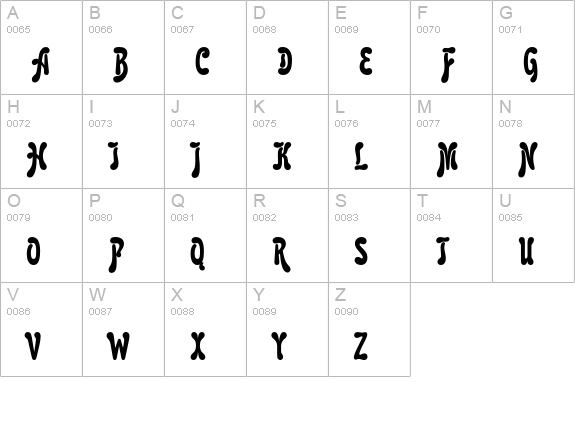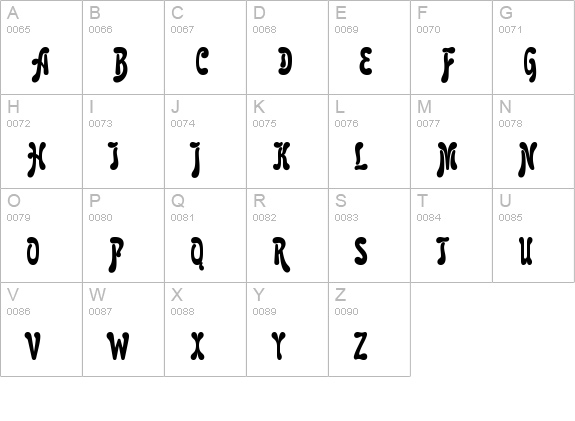
PT Karolla Cyrillic Font Details
Introducing the stunning PT Karolla Cyrillic font, a timeless typeface that combines elegance and versatility. Designed with meticulous attention to detail, this font exudes a sense of sophistication and refinement, making it perfect for a wide range of design projects. With its graceful curves and balanced proportions, PT Karolla Cyrillic adds a touch of class to any text. Whether used for headlines, body text, or branding materials, this font effortlessly captures attention and elevates the overall aesthetic of any design. One of the most exciting aspects of PT Karolla Cyrillic is that it is freely available to download at FontsMarket.com. This means that designers, artists, and typographers can enjoy the benefits of this exquisite font without any cost. Its accessibility makes it the ideal choice for students, freelancers, and professionals alike, who want to add a touch of elegance to their work without breaking the bank. The versatility of PT Karolla Cyrillic shines through in its Cyrillic character set, making it a valuable asset for projects that require multilingual support. Whether your design calls for Russian, Ukrainian, Bulgarian, Serbian, or other Cyrillic-based languages, this font has you covered, ensuring seamless integration and harmonious typography. In addition to its aesthetic appeal and multilingual capabilities, PT Karolla Cyrillic also offers a range of font weights and styles, allowing for creative freedom and endless possibilities. From light and graceful to bold and impactful, this font can adapt to suit any project's needs. Whether you are designing a website, creating a logo, or crafting a print layout, PT Karolla Cyrillic is the perfect choice for those seeking a font that effortlessly combines elegance, versatility, and accessibility. Download it for free at FontsMarket.com and let your creativity soar to new heights.